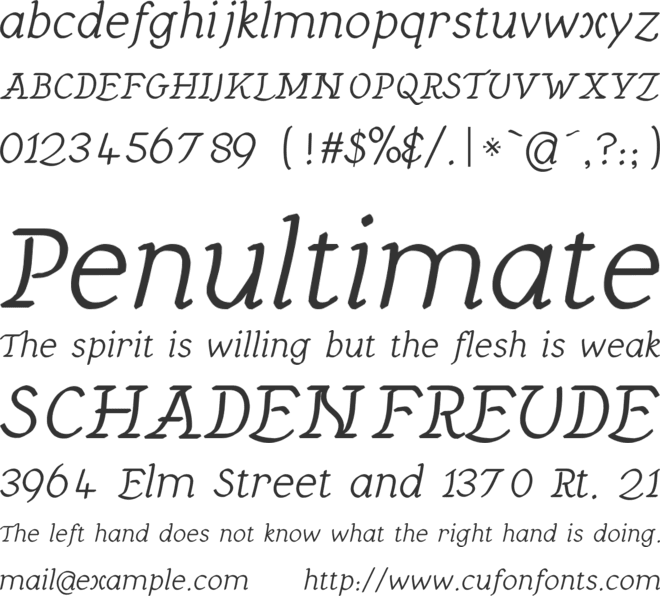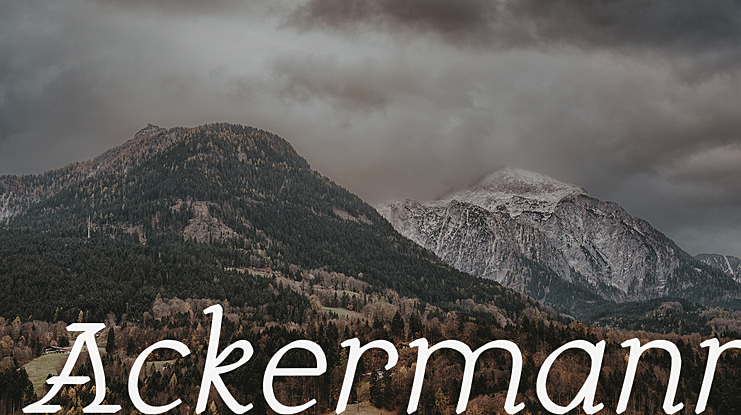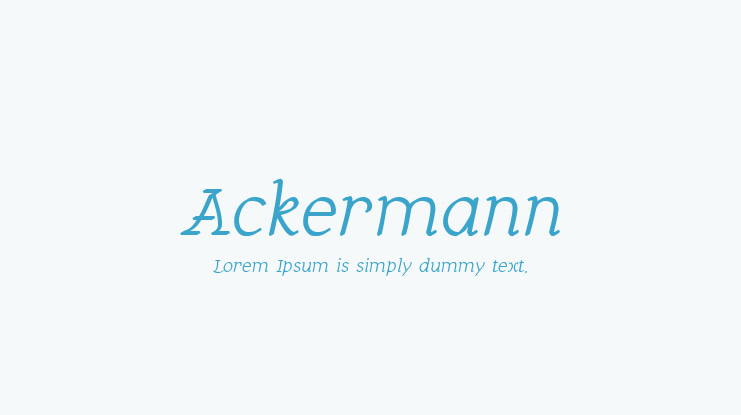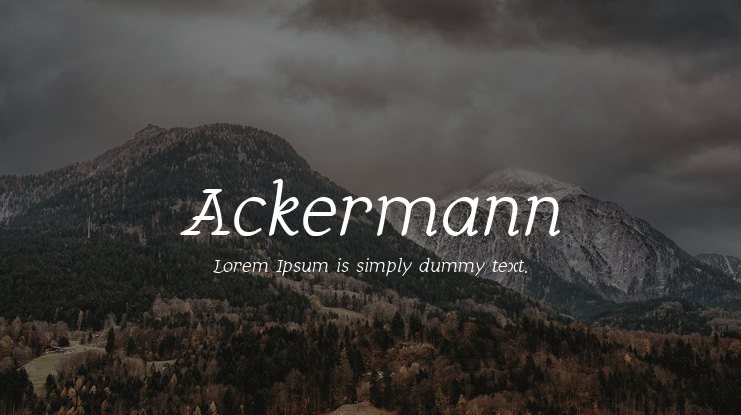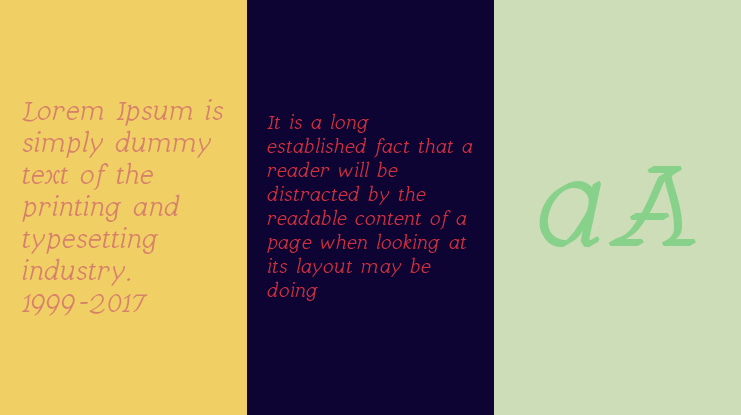
I made this font initially as I liked the shape of the curve y = x^x, and used that for the letter J. I then continued on hoping to make a TeX replacement font, and this does cover all the characters used in the TeX base encoding. Ultimately I just wanted to make a font that looks nice.